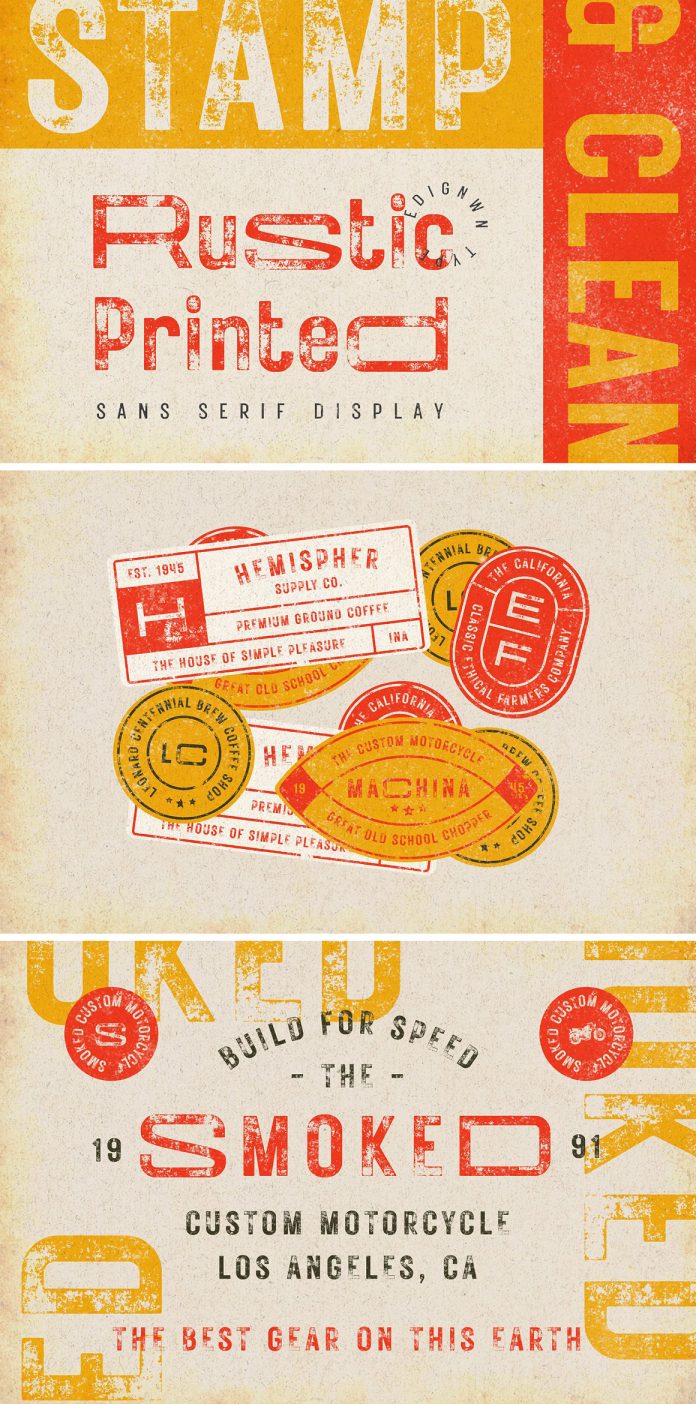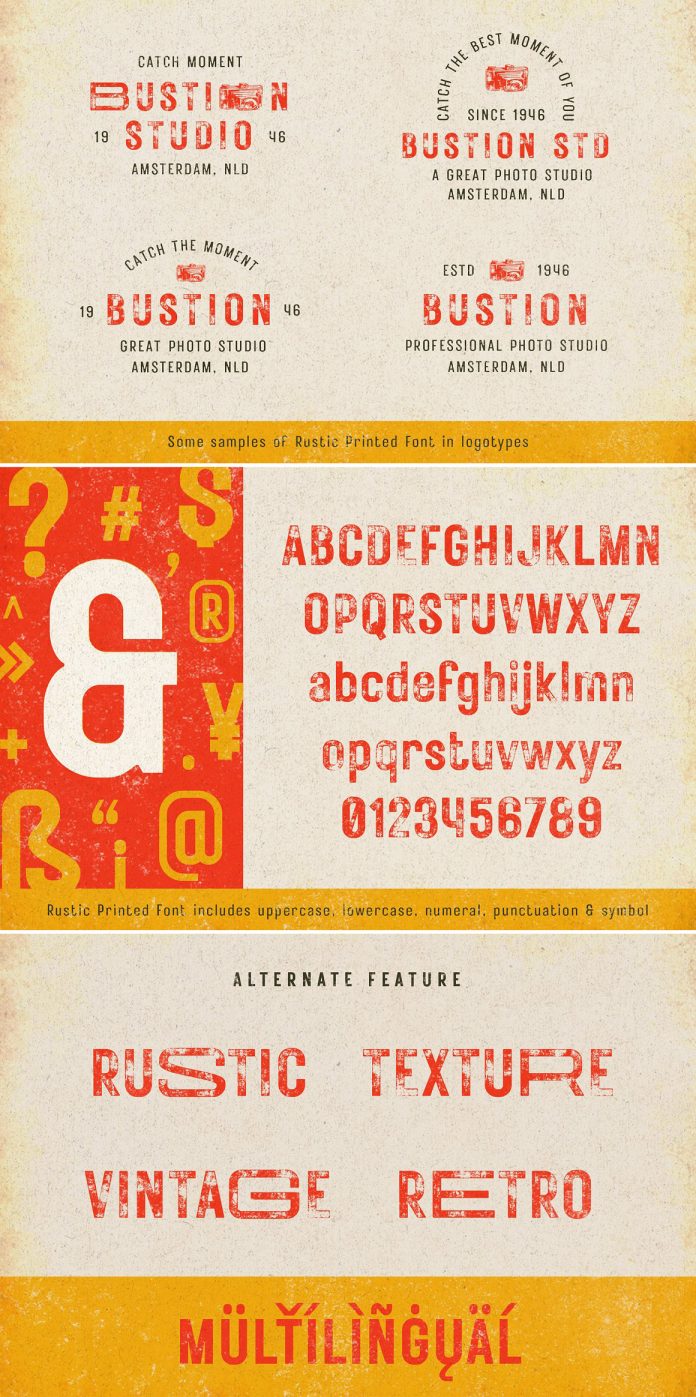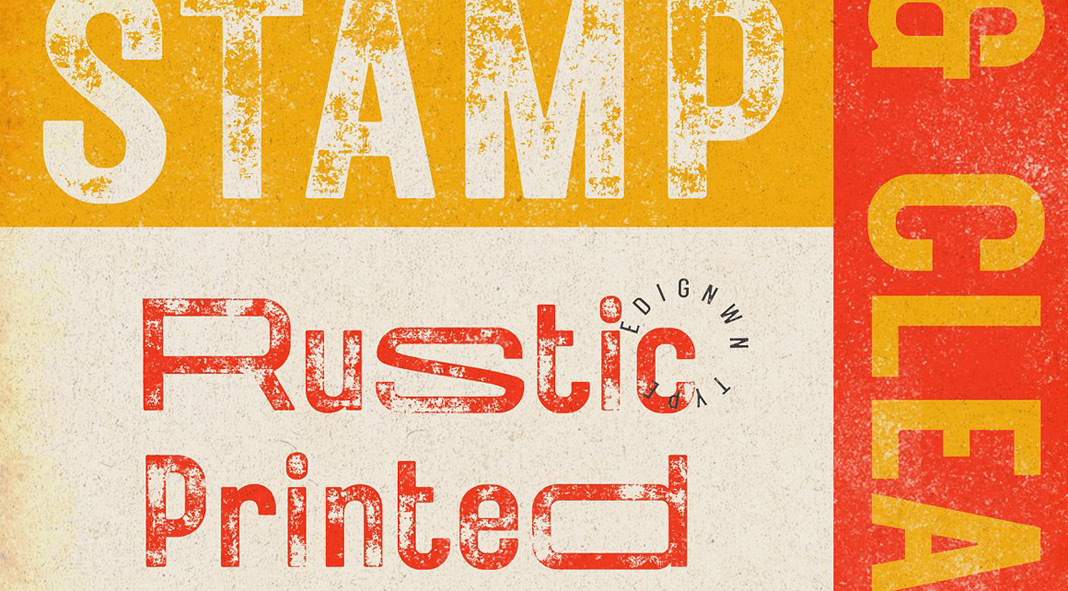
Rustic Printed, a textured vintage font designed and published by Edignwn Type.
Rustic Printed is a sans-serif display font inspired by good old vintage typography. The typeface consists of two styles: regular and stamp (a textured version). Furthermore, the font is equipped with different widths of alternates glyphs. The Rustic Printed font is a great choice for use in logotypes, posters, labels, badges, packaging, branding, etc. Below you can see a few images of this unique vintage font. For further information, just click on one of the following links.
Rustic Printed Vintage Font by Edignwn Type
Rustic Printed vintage font by Edignwn Type
Rustic Printed Vintage Font by Edignwn Type
Rustic Printed vintage font by Edignwn Type